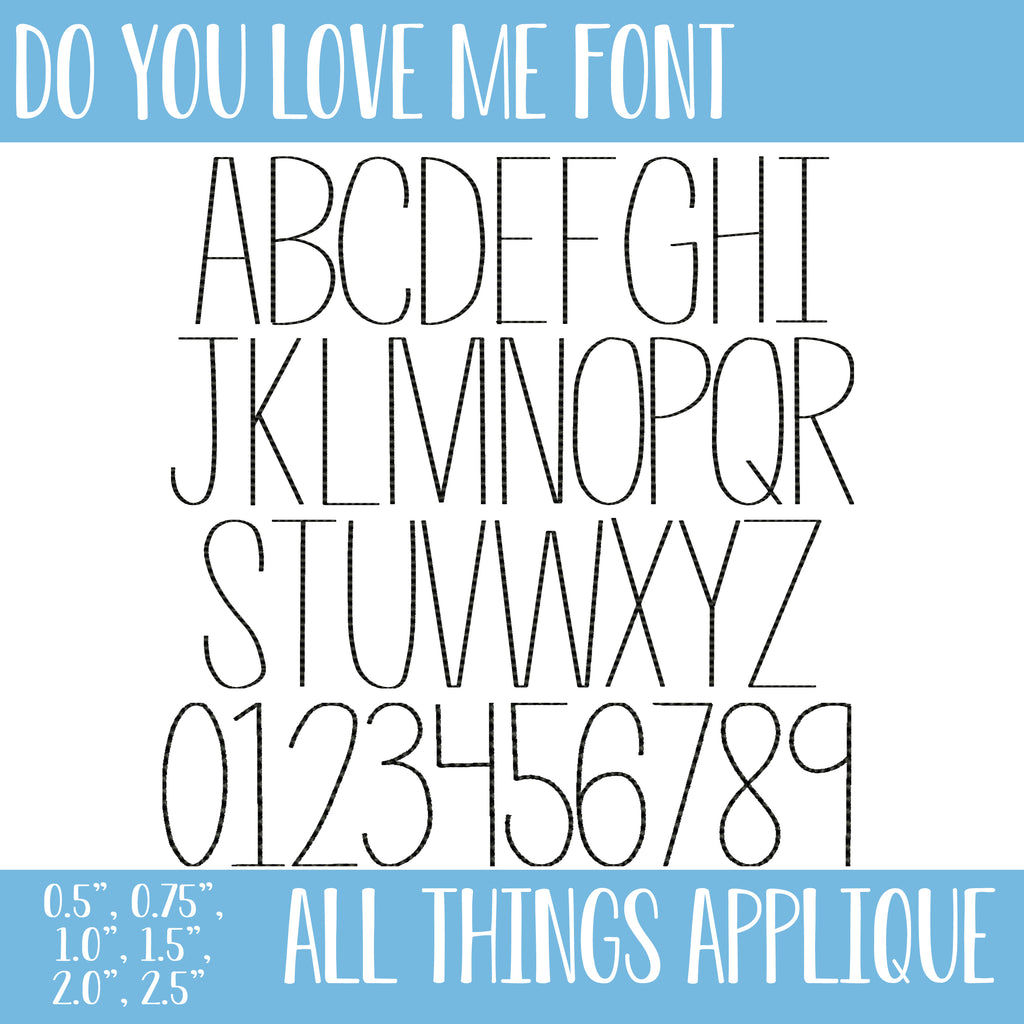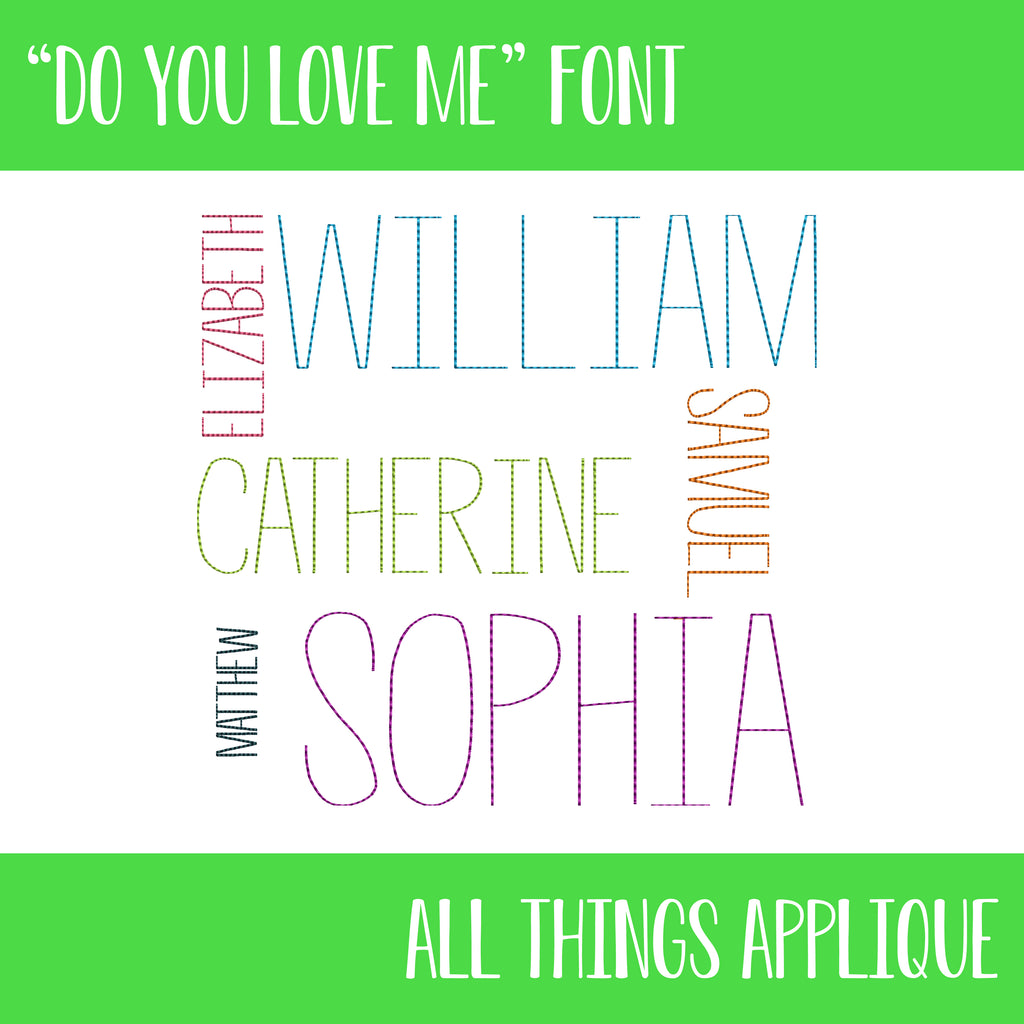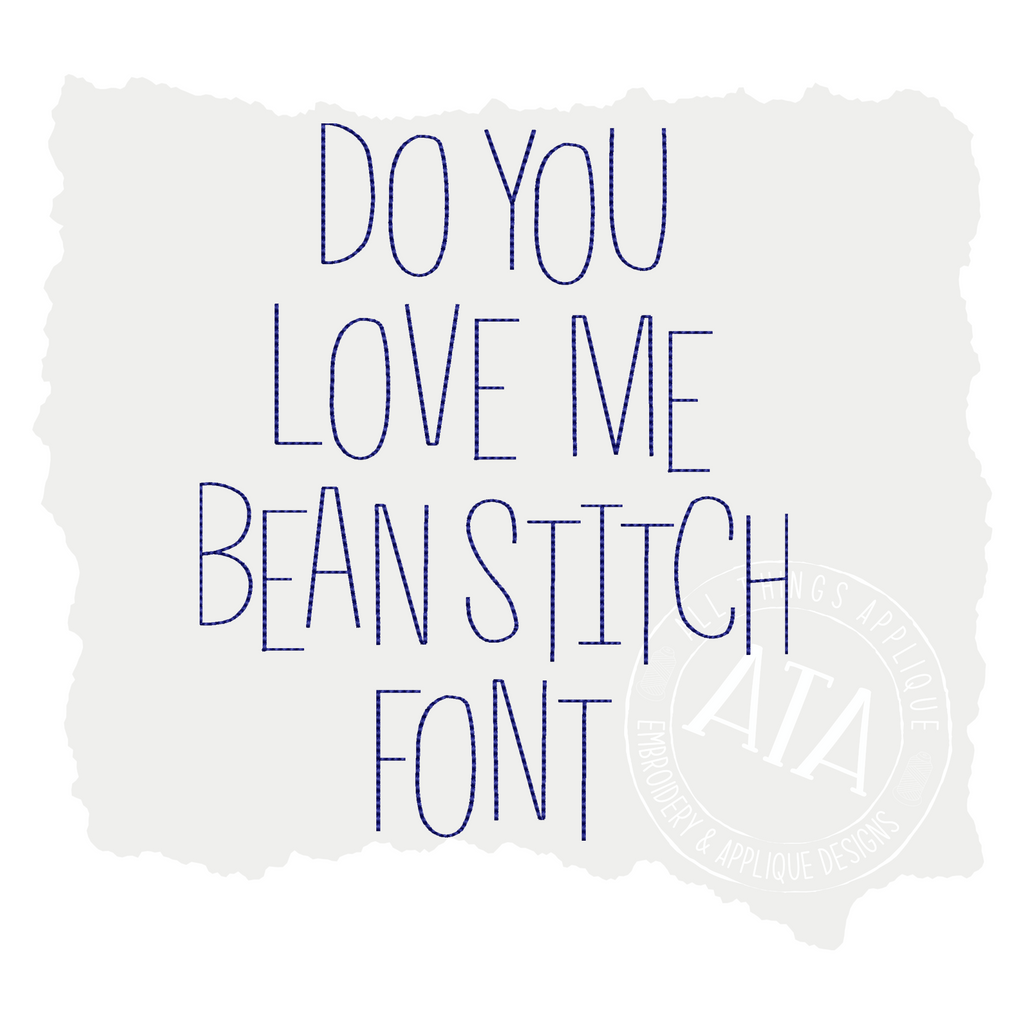
Do You Love Me Embroidery Font
Farmhouse Capital Bean Stitch Embroidery Font in 6 Sizes by All Things Applique - Do You Love Me
A quick and simple embroidery font perfect to stitch with any quick stitch or vintage embroidery design.
Note: This font is stitched with a "quick" bean stitch (not satin stitch).